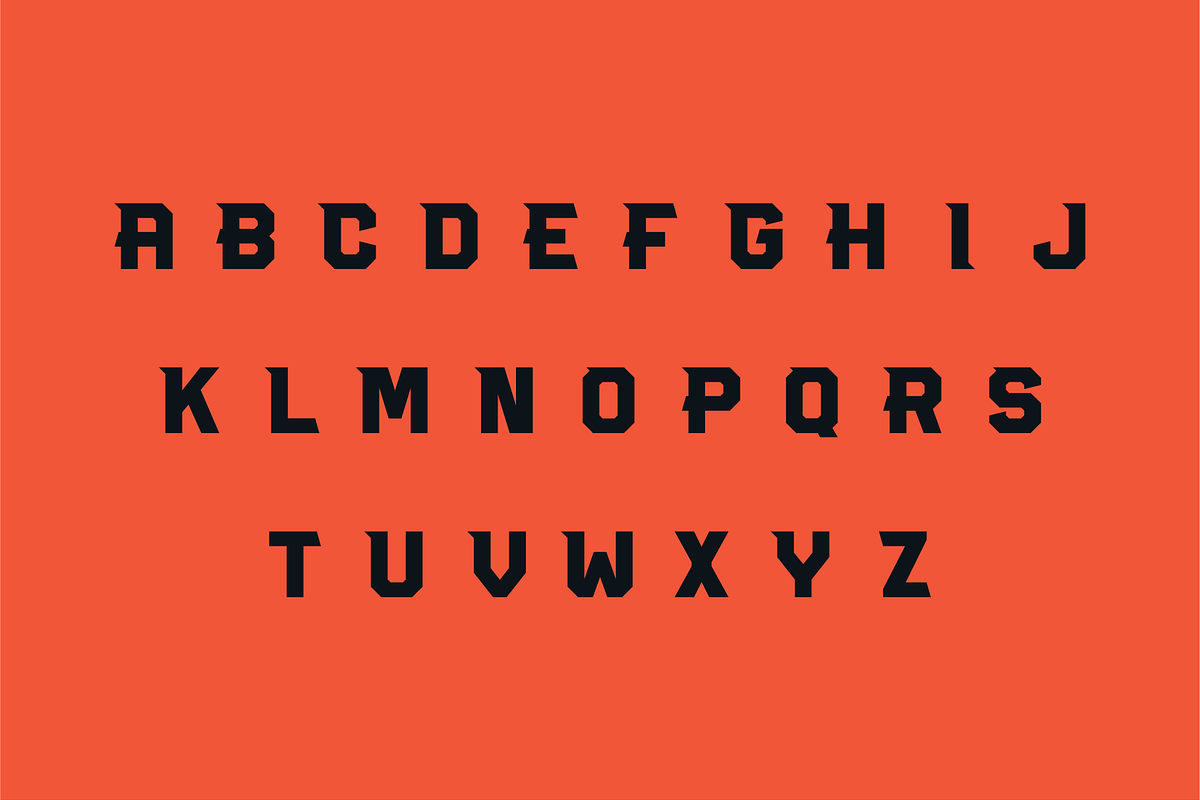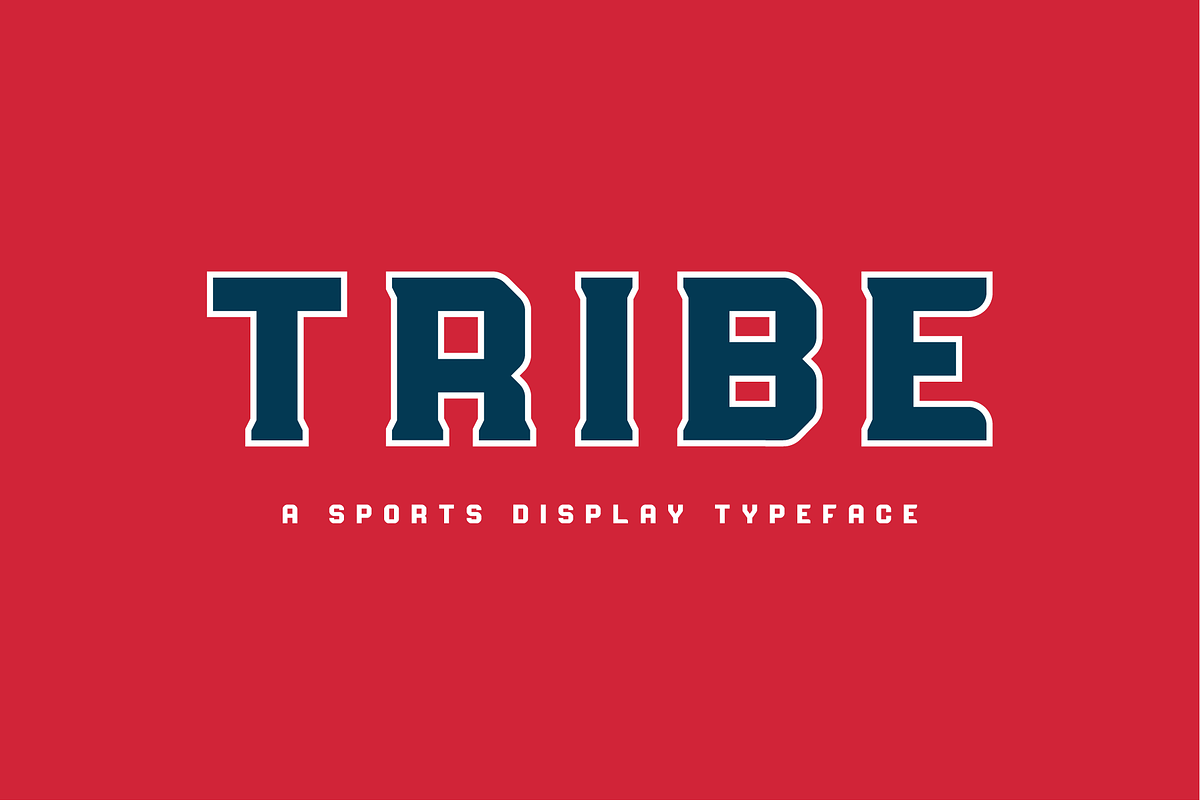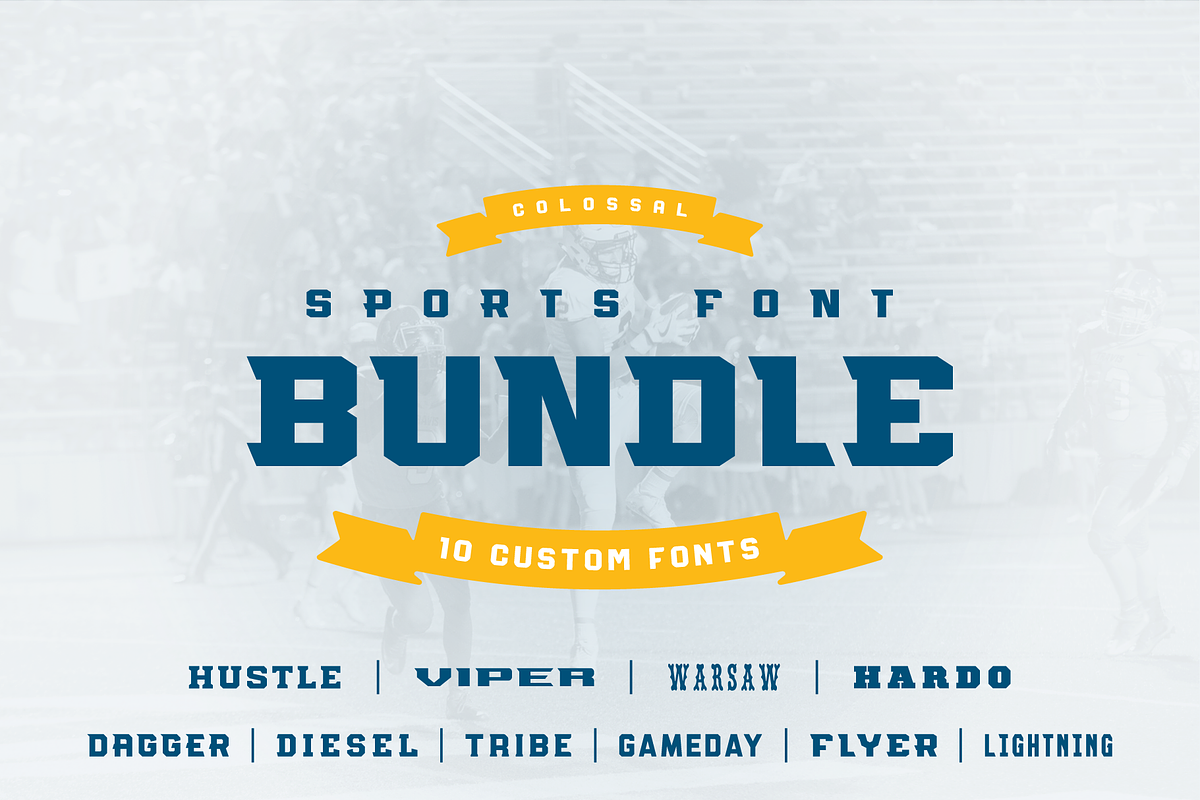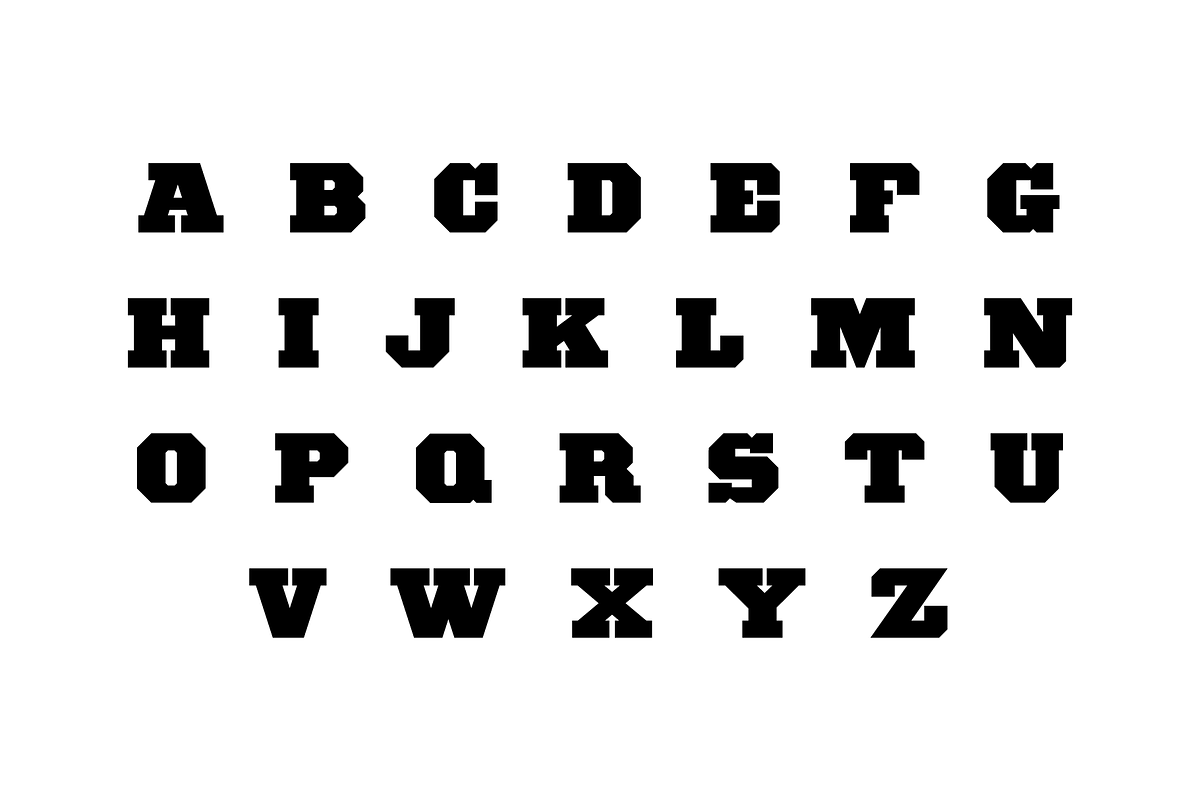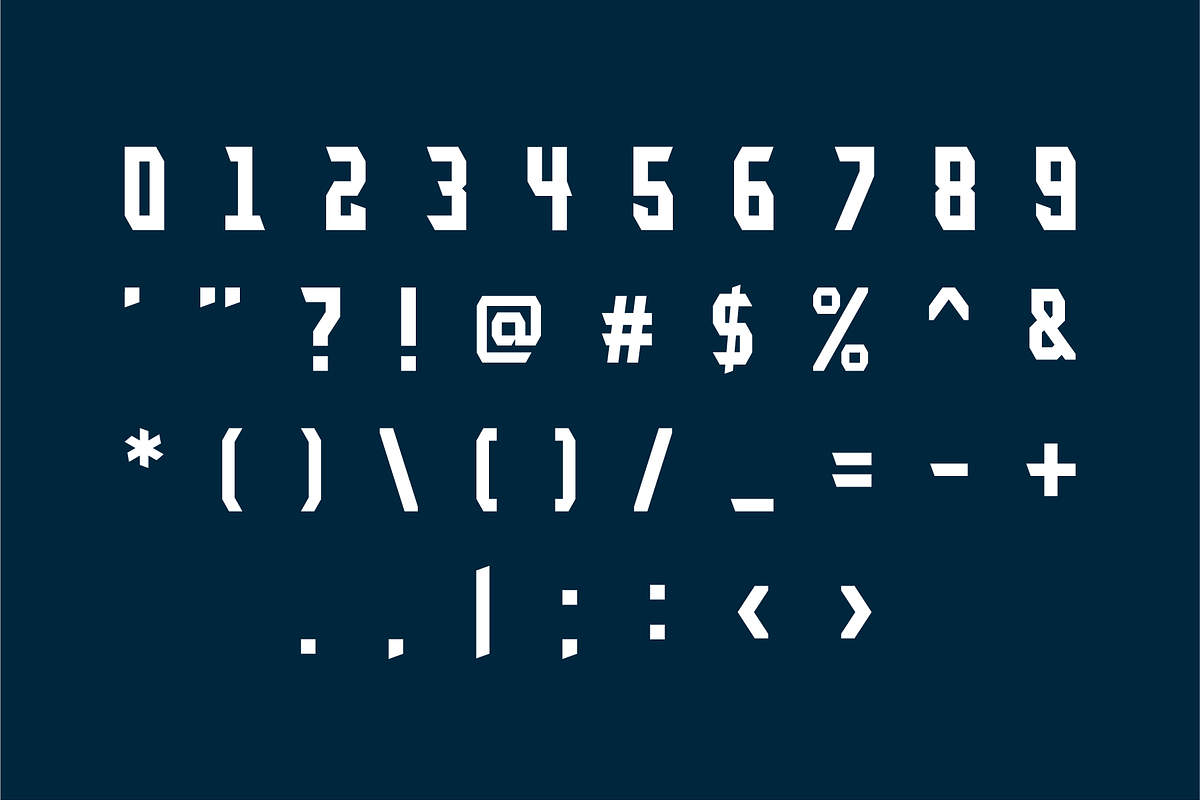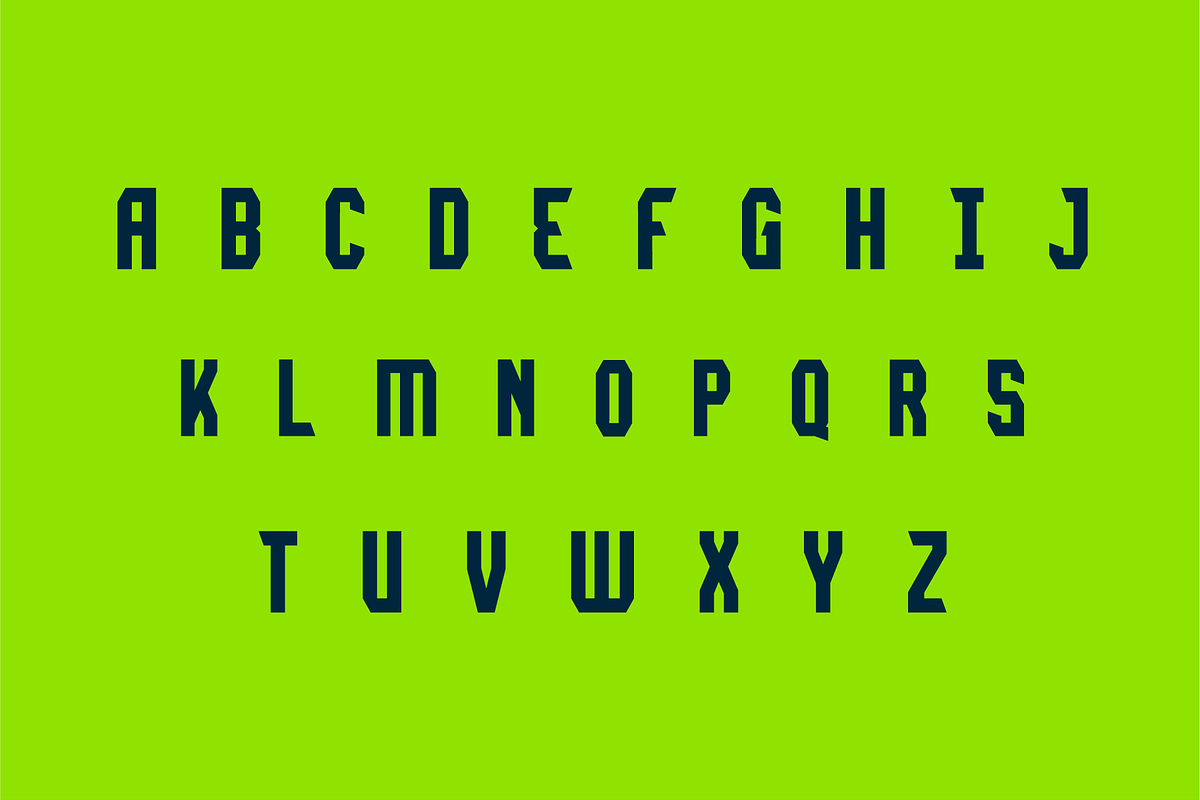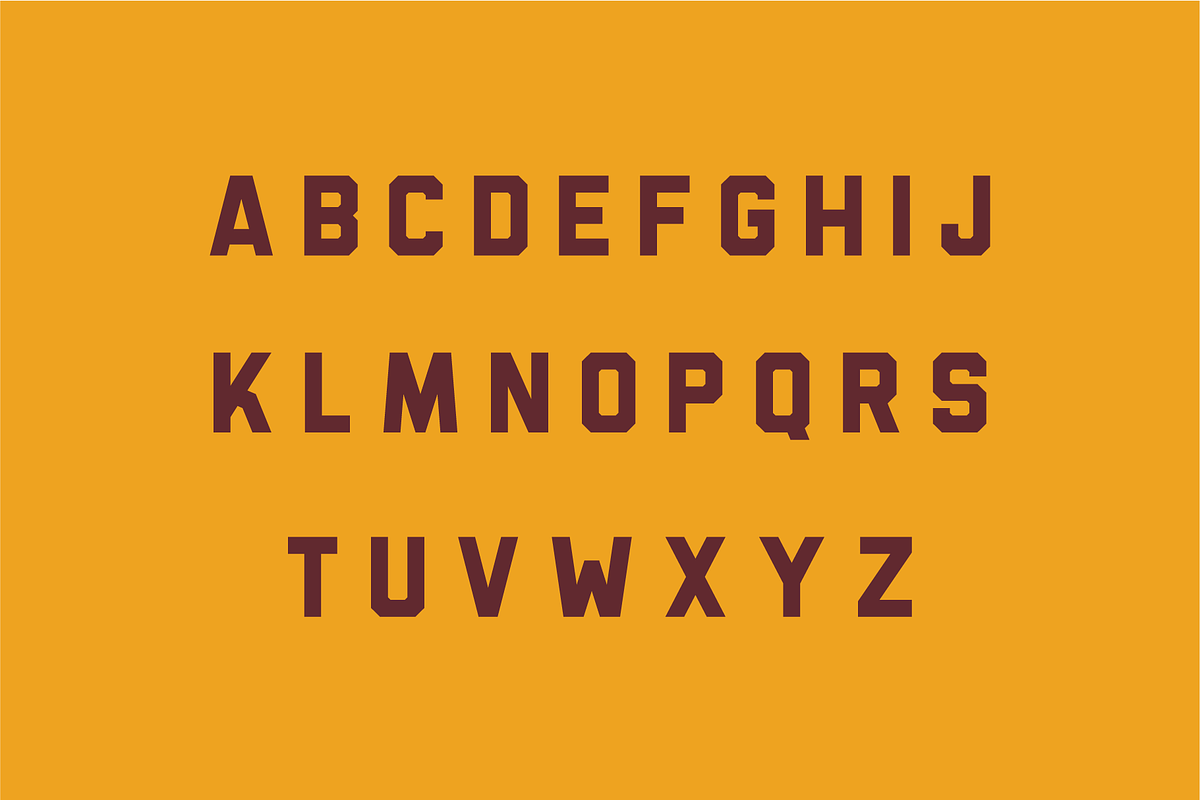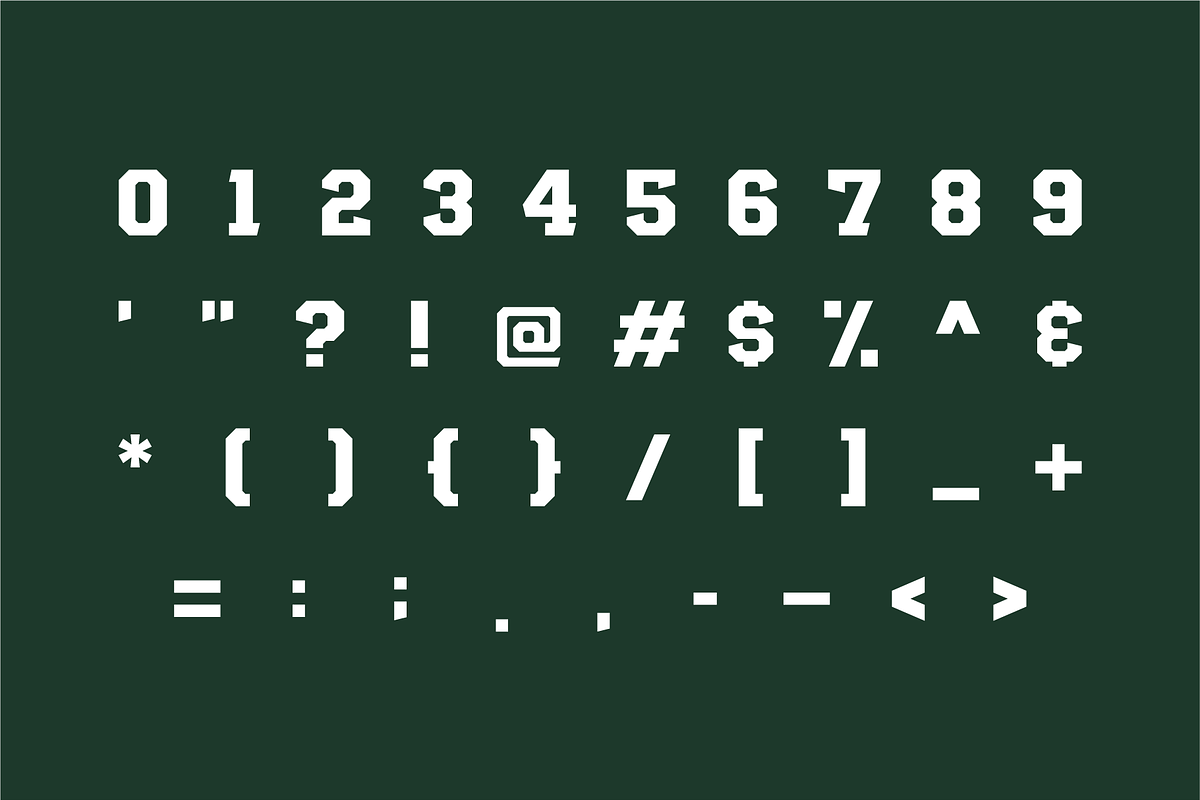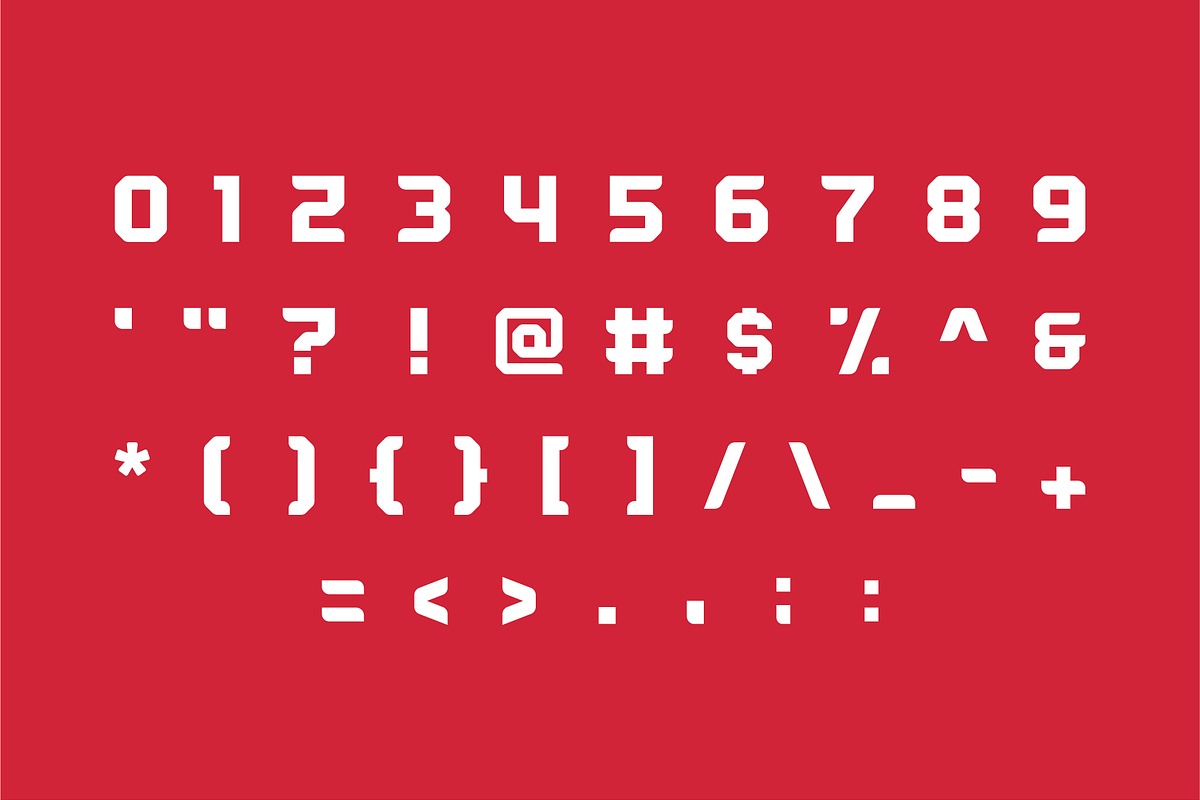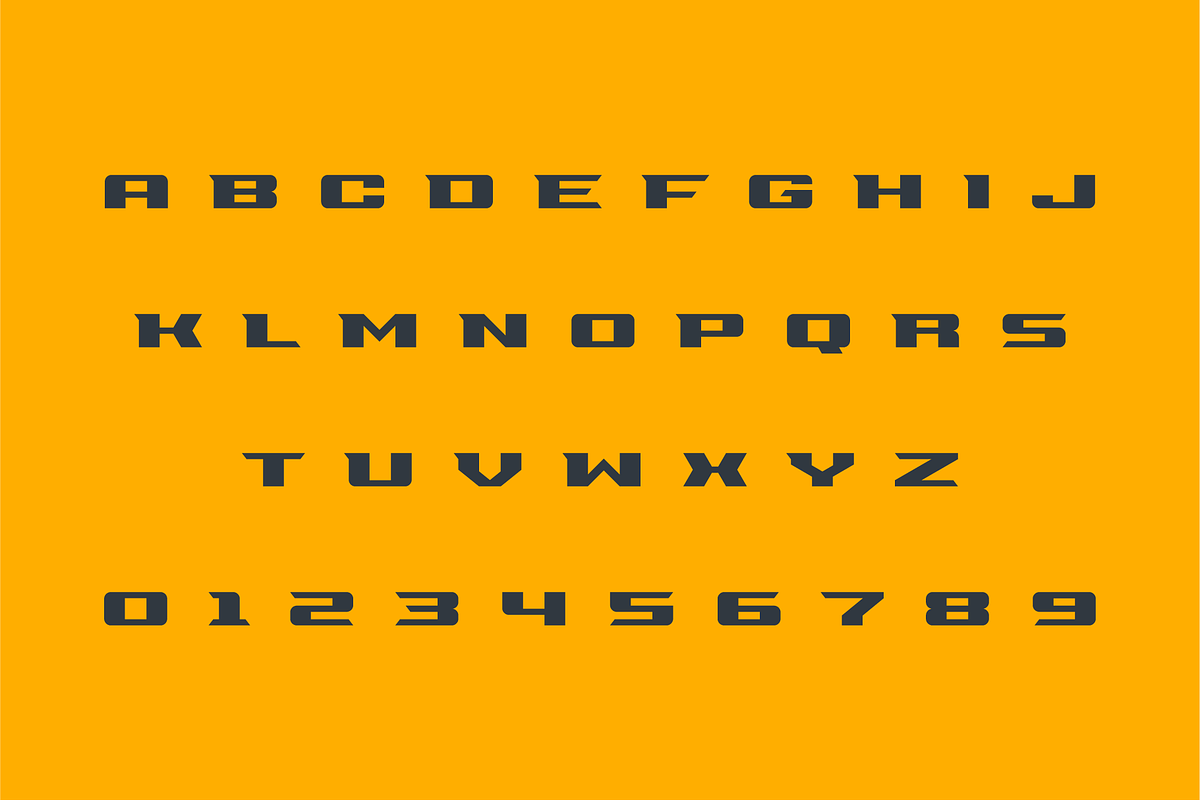
Colossal Sports Font Bundle
Studio One Four presents the Colossal Sports Font Bundle. This bundle includes 10 custom made font families with 42 different styles combined! This versatile range of sports fonts works well with sports branding, apparel design or anything that needs a typographic kickstart.
Hustle – An extremely clean, bold, and impactful slab serif font. https://creativemarket.com/StudioOneFour/5091016-Hustle
Viper – A wide-set font that comes in 3 styles. https://creativemarket.com/StudioOneFour/5251782-Viper
Warsaw – A vintage display font that comes in 3 styles. https://creativemarket.com/StudioOneFour/2873805-Warsaw
Hardo – A bold, chunky and strong slab serif that comes in 2 styles. https://creativemarket.com/StudioOneFour/6295945-Hardo
Dagger – A sharp and aggressive display font that comes in 4 styles. https://creativemarket.com/StudioOneFour/2785629-Dagger
Diesel – A slab serif font with dynamic characteristics which includes 6 styles. https://creativemarket.com/StudioOneFour/2811458-Diesel
Tribe – A versatile display font that come in 6 styles. https://creativemarket.com/StudioOneFour/2837694-Tribe
Gameday – An extremely versatile sans serif that comes in 5 styles. https://creativemarket.com/StudioOneFour/2839812-Gameday
Flyer – A sturdy, wide set serif font that comes in 5 styles. https://creativemarket.com/StudioOneFour/2807643-Flyer
Lightning – A sharp, condensed font that includes 7 styles. https://creativemarket.com/StudioOneFour/2813603-Lightning73